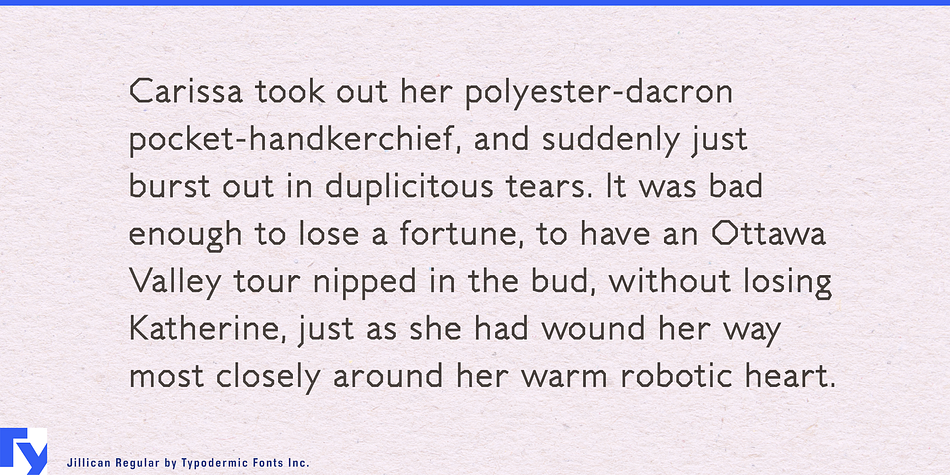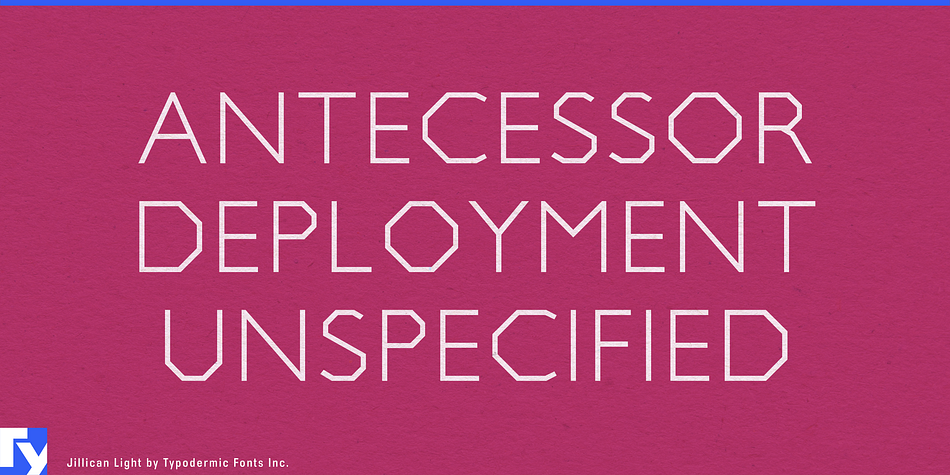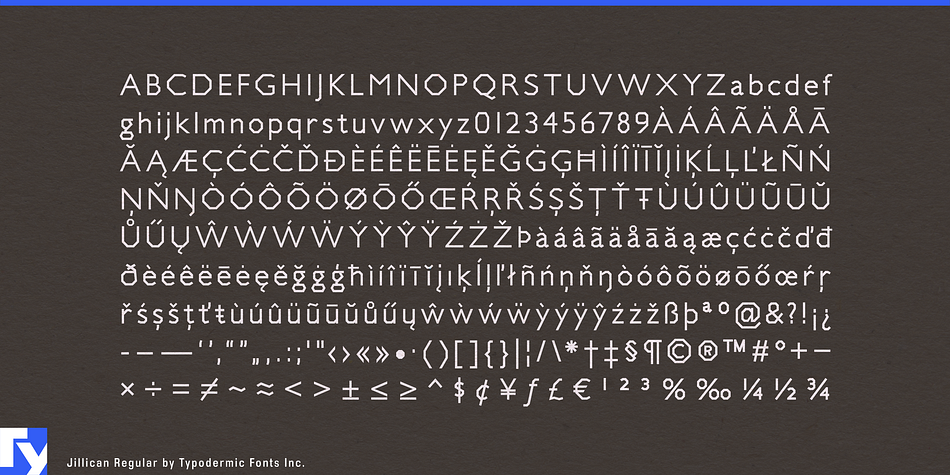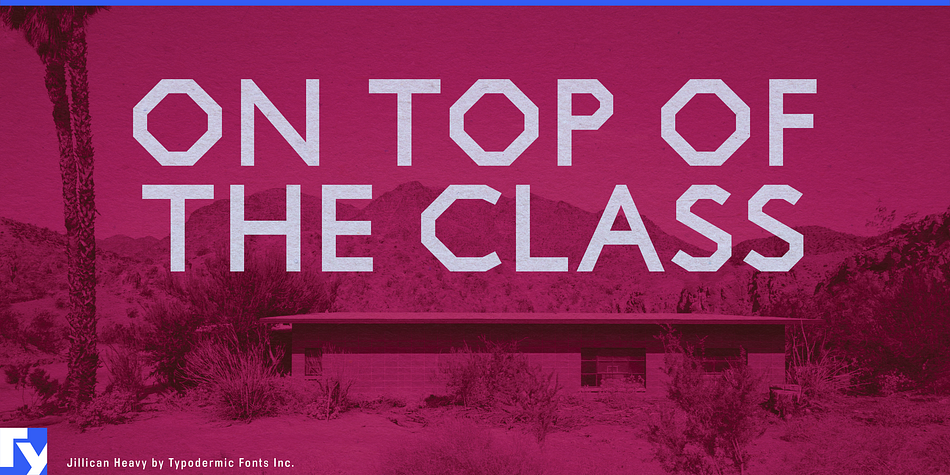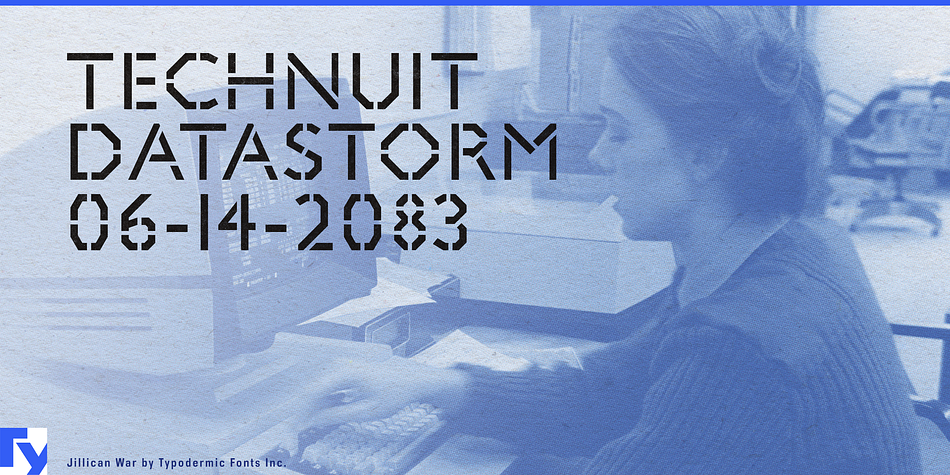
Jillican is a grunge, stencil and display sans font family. This typeface has fifteen styles and was published by Typodermic Fonts Inc.
This classically proportioned sans-serif font is strictly about efficiency; angled only where necessary and free of artifice. Jillican closely resembles the classic Gill Sans had it been drawn by a plotter.